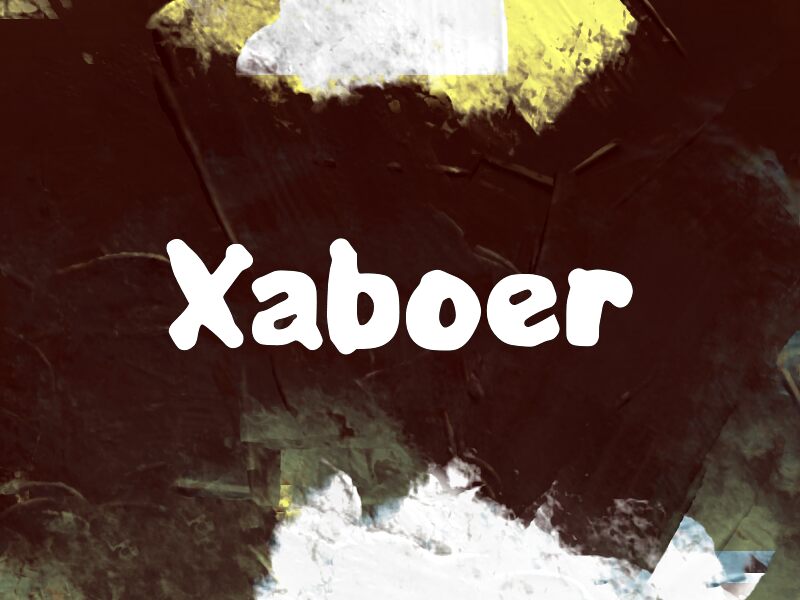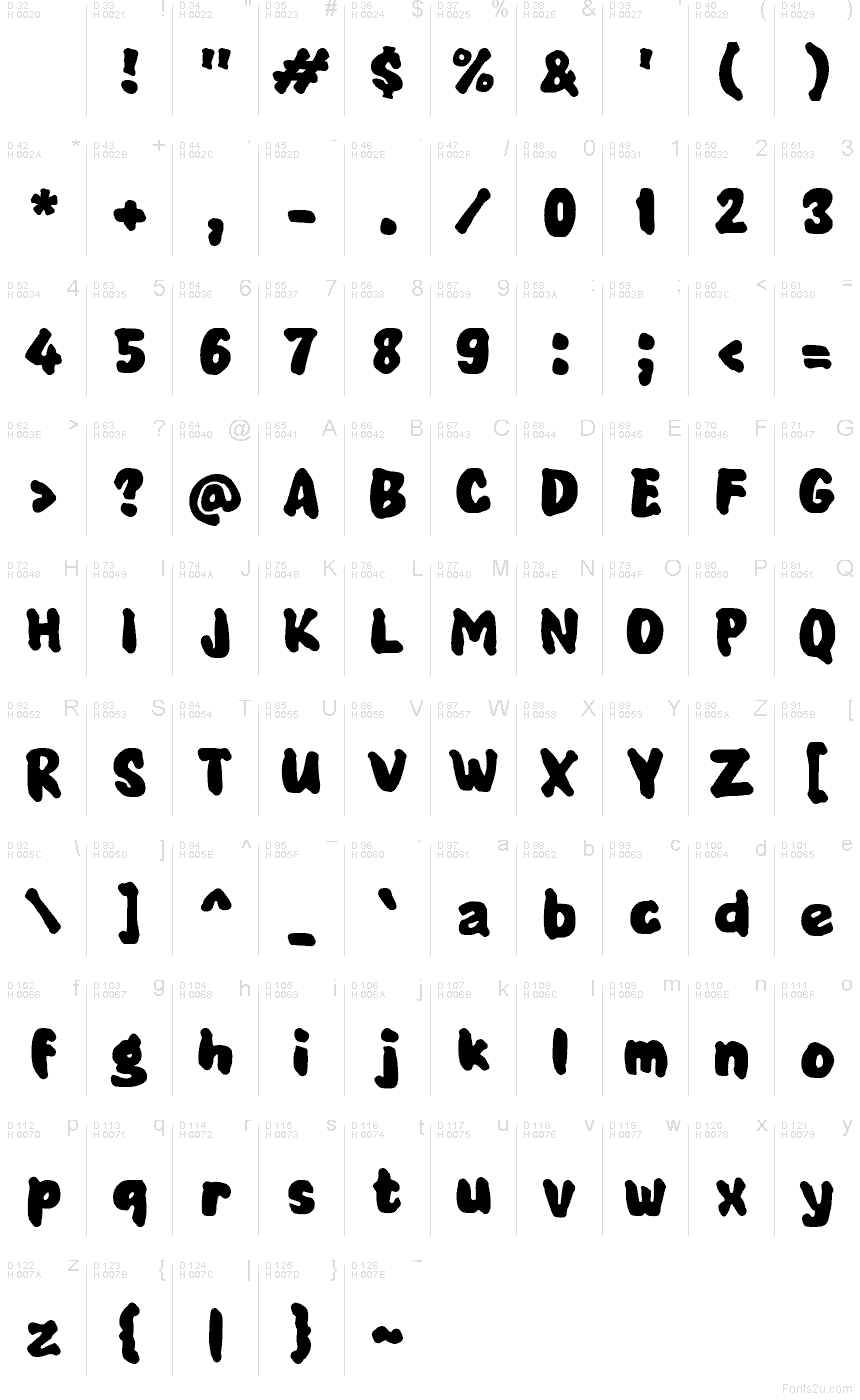
Xaboer
Xaboer font by wepfont.com is a free cartoon display typeface with bold, squishy letters that look like they’ve been painted in thick, inky strokes. The chunky shapes and loose, hand-drawn curves give it a bouncy, mischievous energy that jumps off the screen, while the tight rhythm keeps words feeling solid and easy to read at a glance. It’s expressive without getting messy, so you can push the fun without losing clarity.
Using Xaboer, this free font shines on kids’ book covers, YouTube thumbnails, snack packaging, party invitations, game titles, and playful social graphics. The dense, black forms hold up beautifully on colorful backgrounds or over photos, especially when you add a light outline or drop shadow. For longer supporting text, pair it with a clean rounded sans-serif and let Xaboer handle the big, noisy headlines.